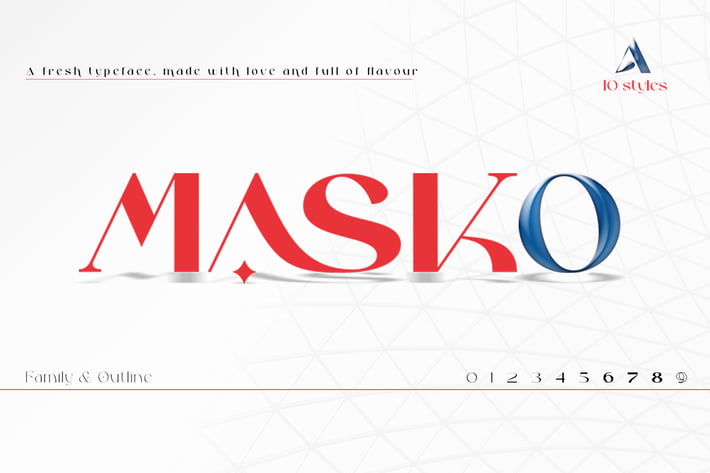
Masko font family
Masko sans serif font family is a very versatile font. There is also a Masko Outline available to help you mix and match to match your creative work in harmony. perfect for magazine pictures, for wedding invitations, for branding, poster design and more.